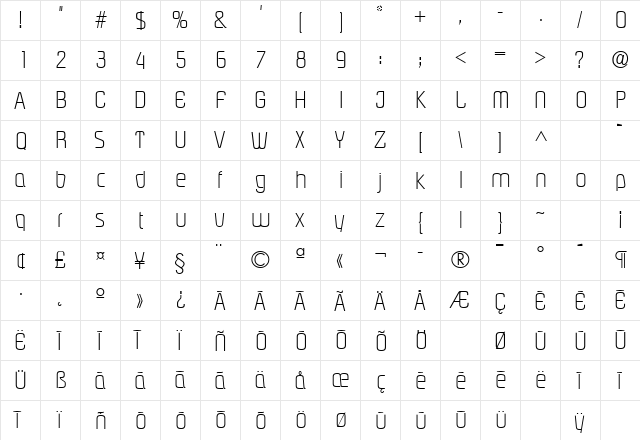
PasadenaL Regular
Design Context for PasadenaL Typeface
PasadenaL is a composed and adaptable typeface that performs quietly and consistently across a wide range of design contexts.